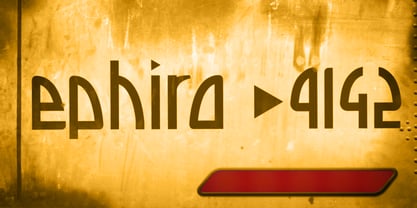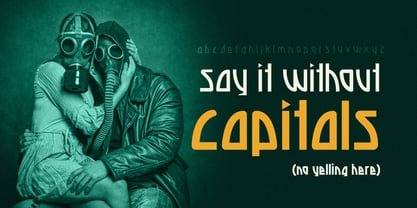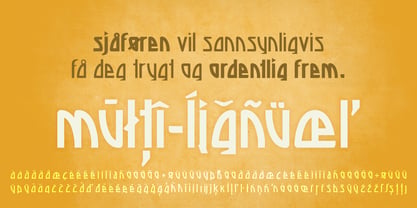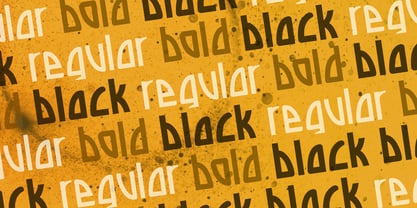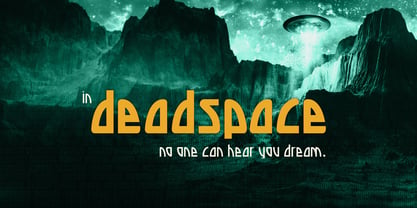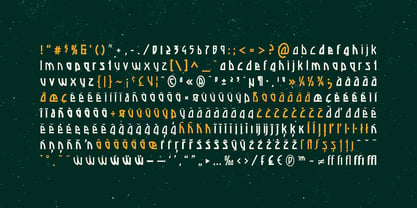
Deadspace
by Tension Type
Deadspace is an experimental sci-fi typeface I originally designed back in 2009 for a logo design I was working on. In 2026 I fixed the majority of the characters, added Pro Latin characters for better language support, added better class kerning and made a much better font.
It has been designed for display. It has no capital letters. I hope it fits a project you’re working on :)
Deadspace is a sci fi display typeface suitable video games, movie posters, logos and headlines.